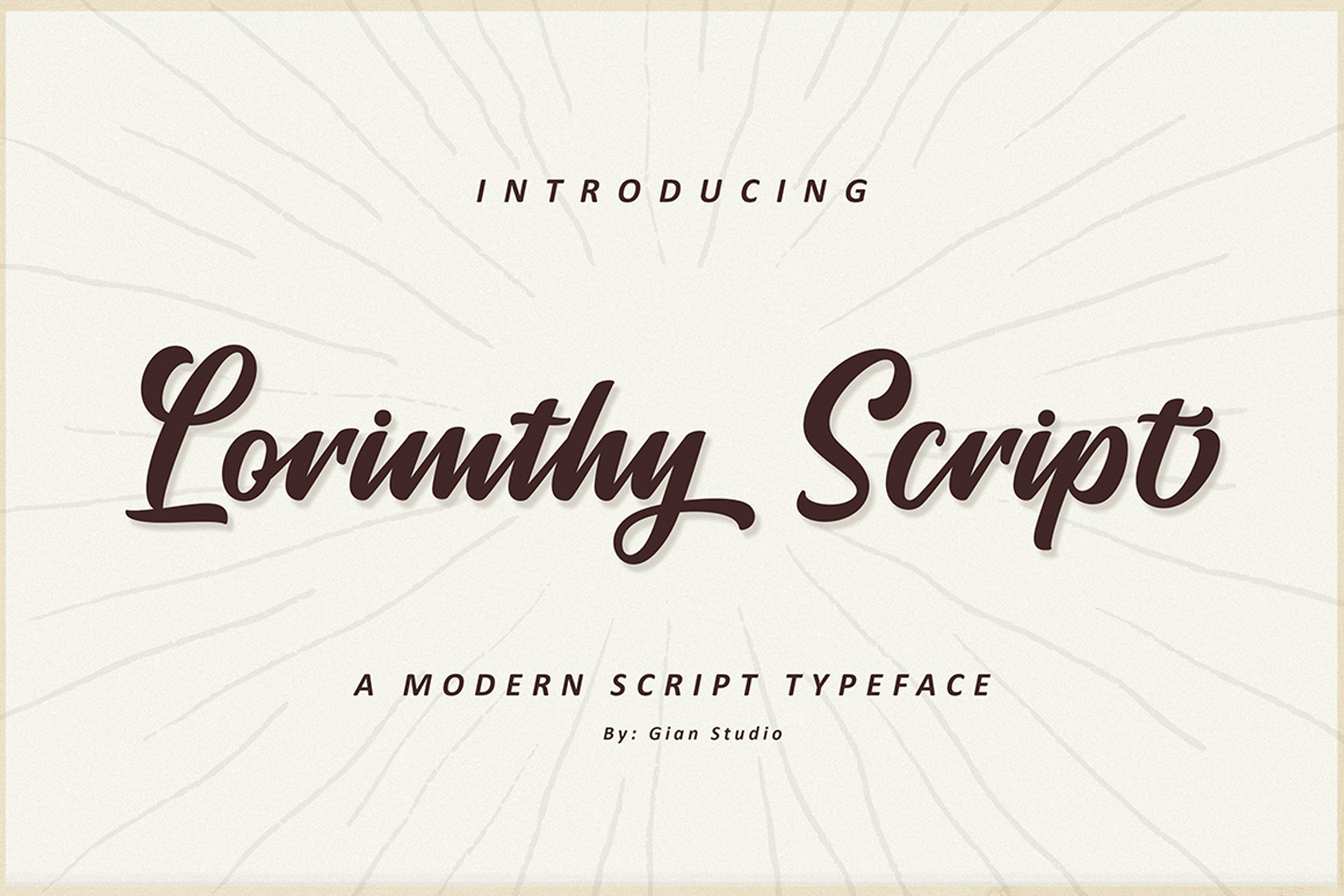
Created By Gian Studio
Lorimthy
Font Lorimthy Script
Font Lorimthy is a modern calligraphy font with the current handwriting style, this font is perfect for branding, wedding invites, magazines, mugs, business cards, quotes, posters, and more, you can try first if you want to buy this font.
Designers: Yusliana
Publisher: Gian Studio